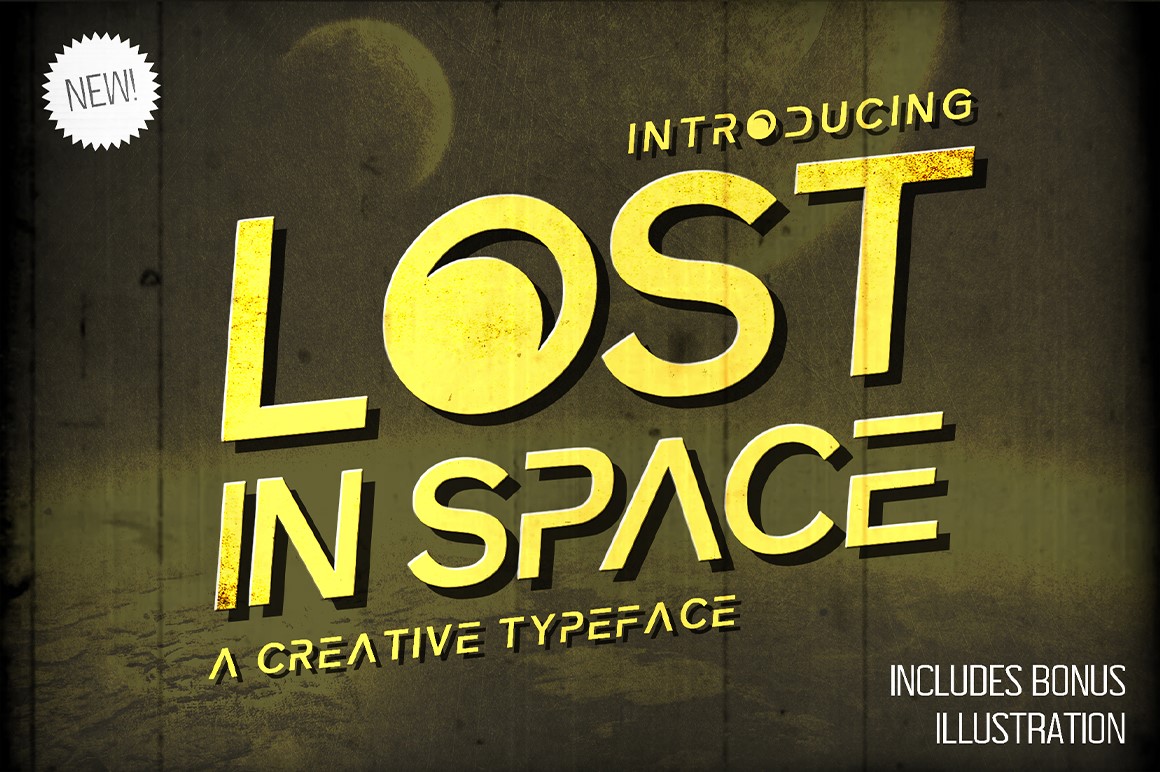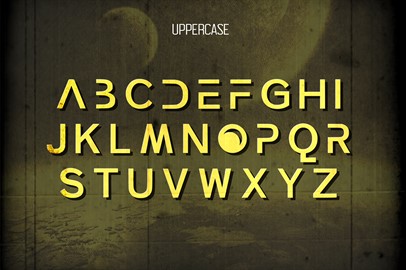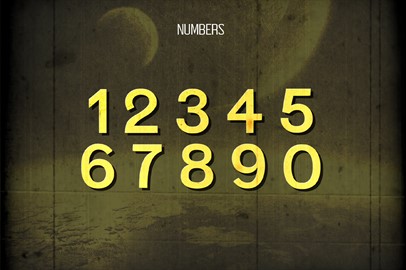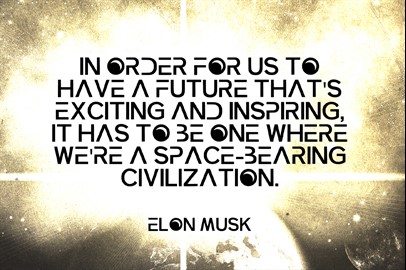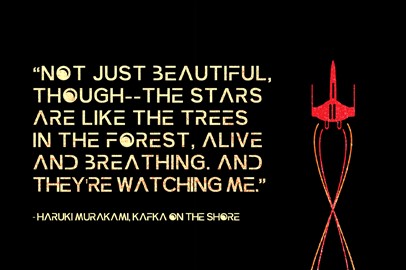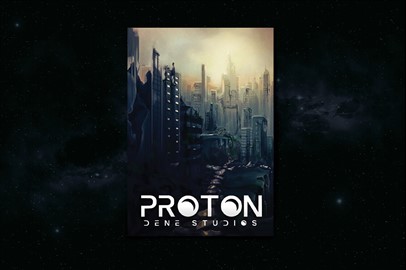
Lost in Space Typeface
Lost in Space
is a unique and creative design that has been passionately handcrafted to give you a futuristic typeface. Inspired by the Lost in Space TV series. It contains upper and lowercase letters as well as numbers.